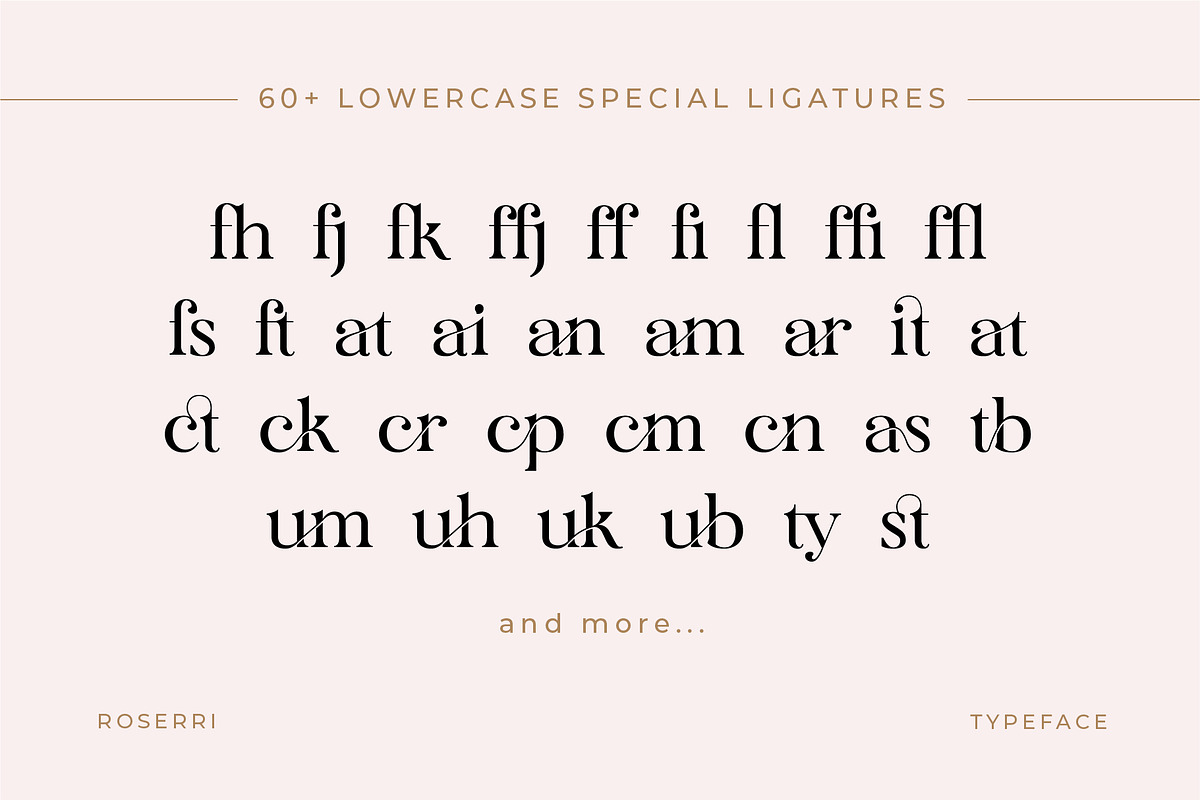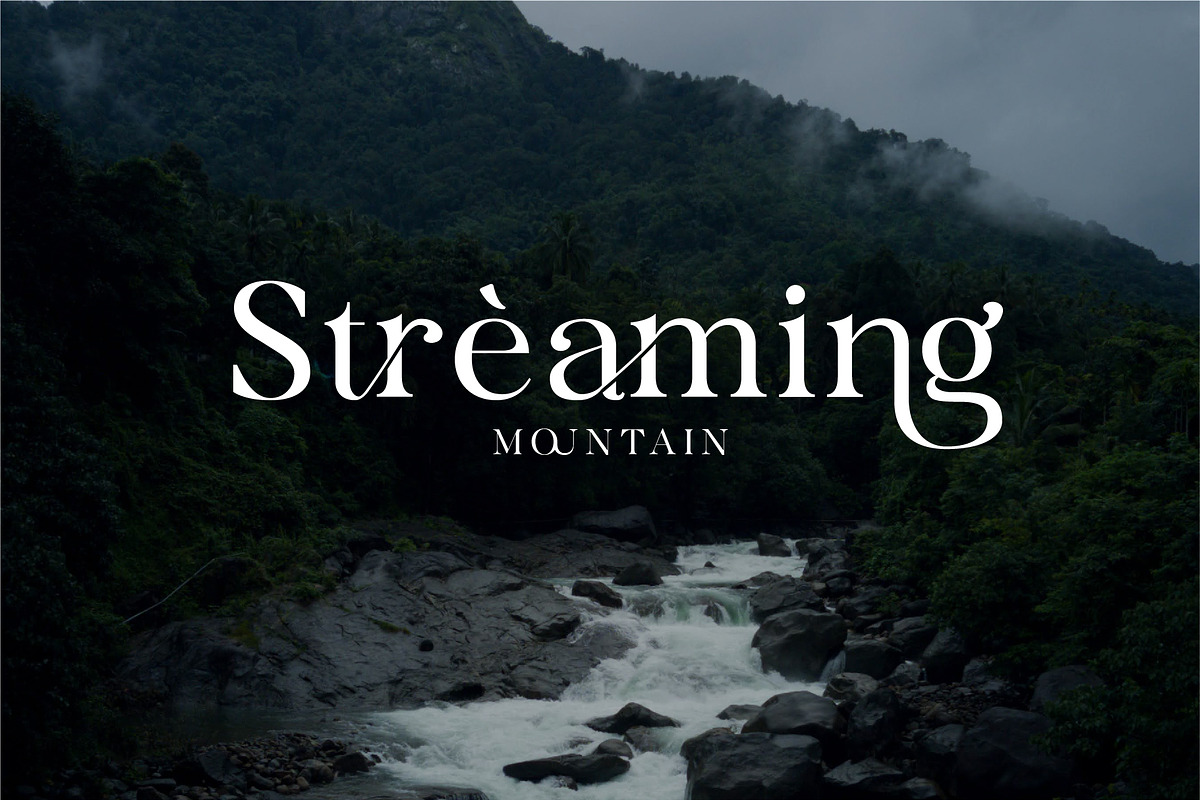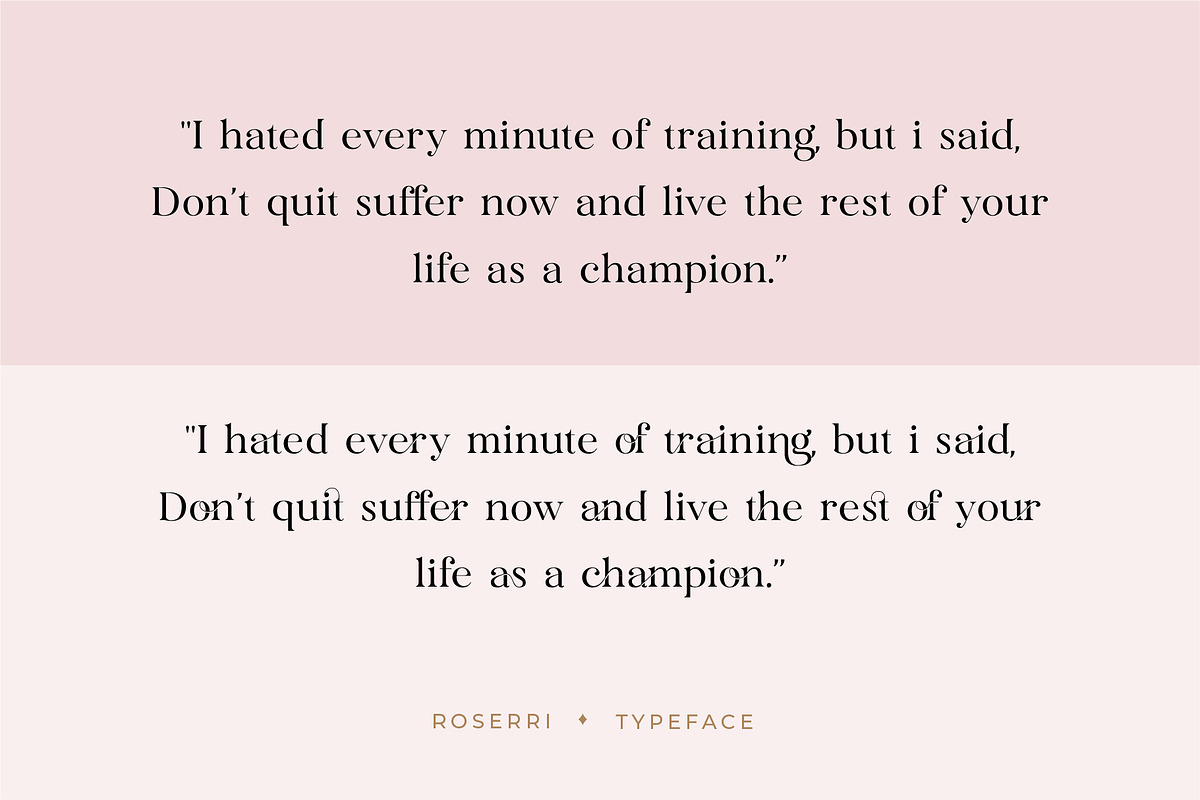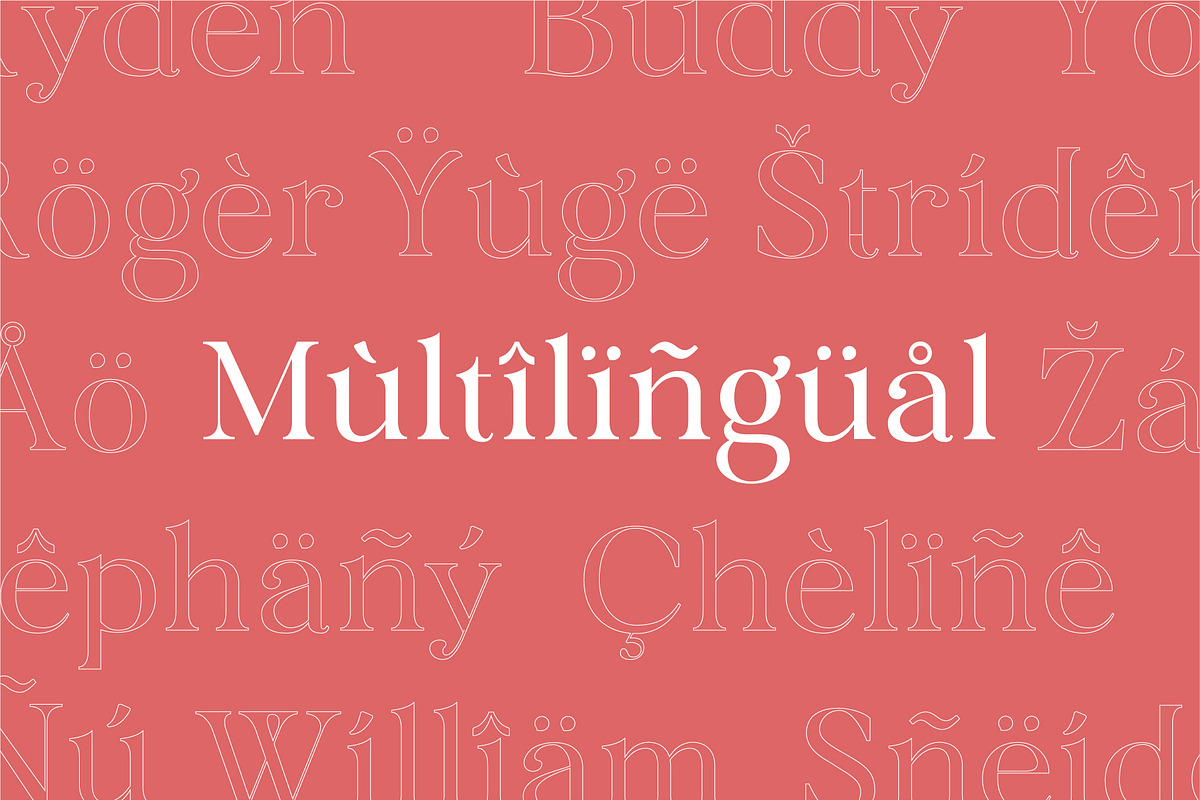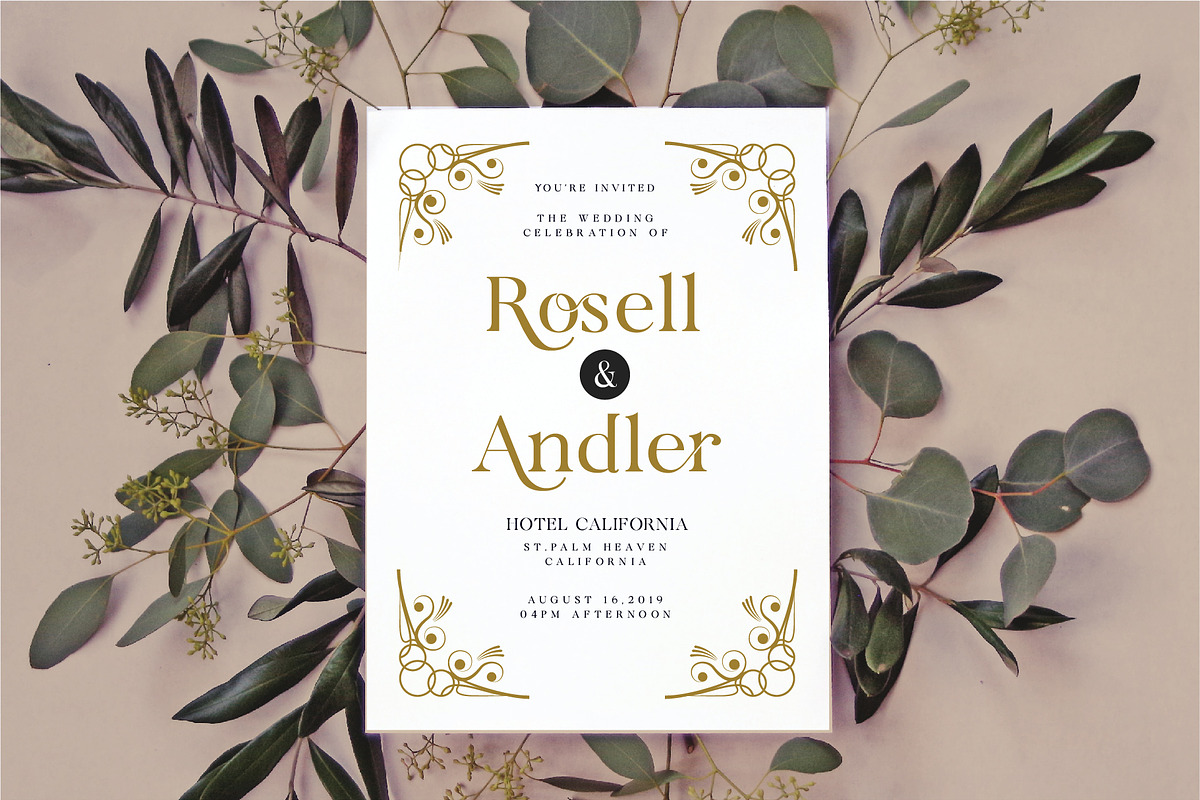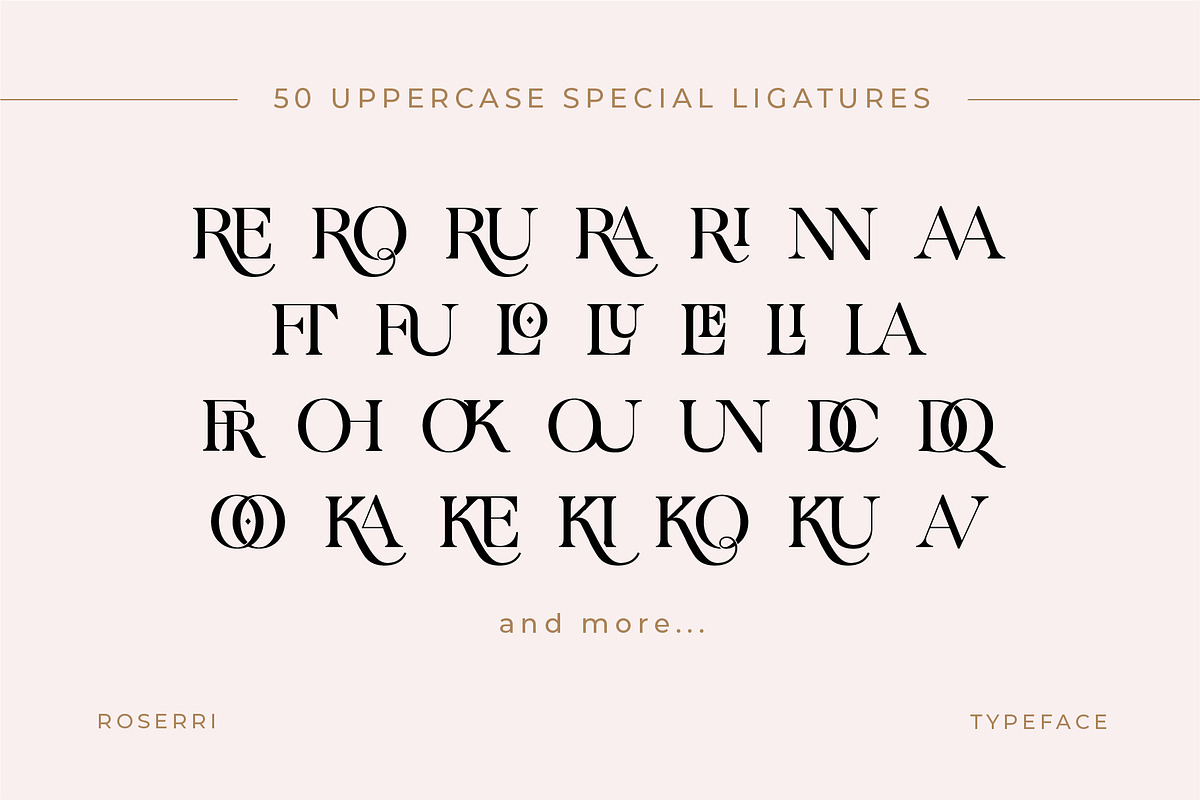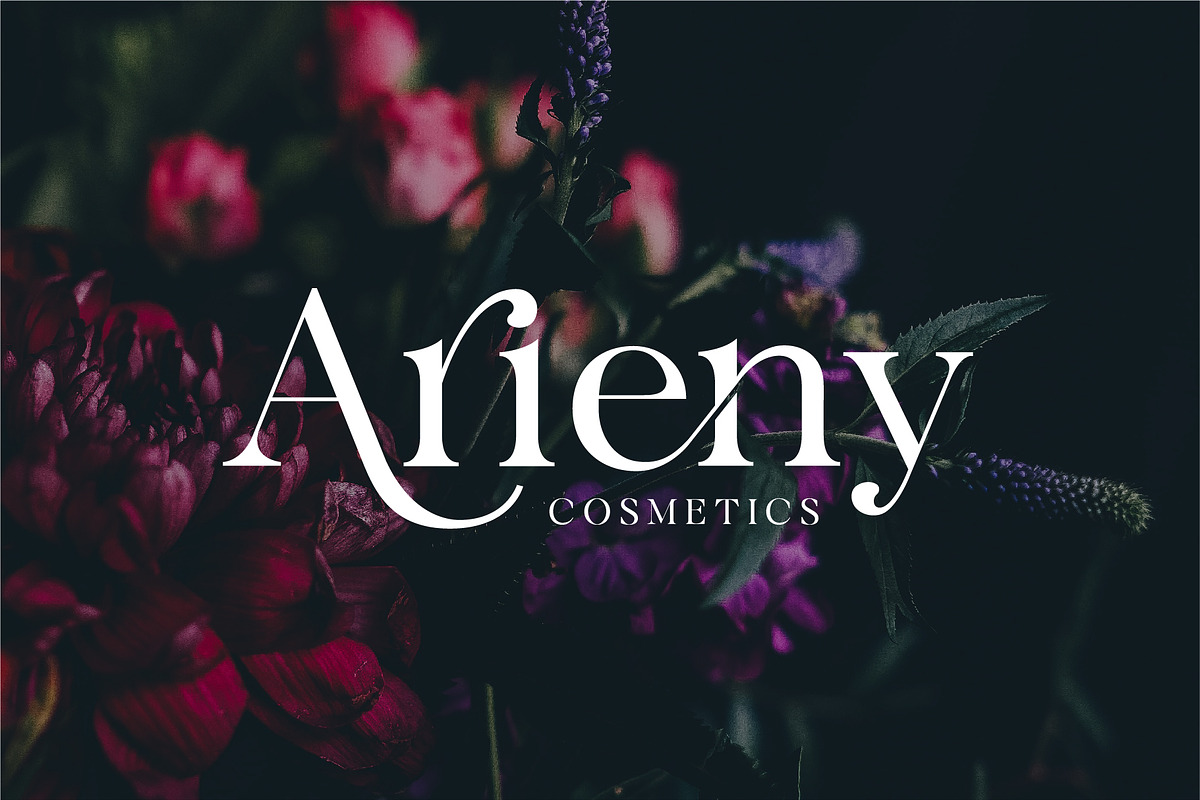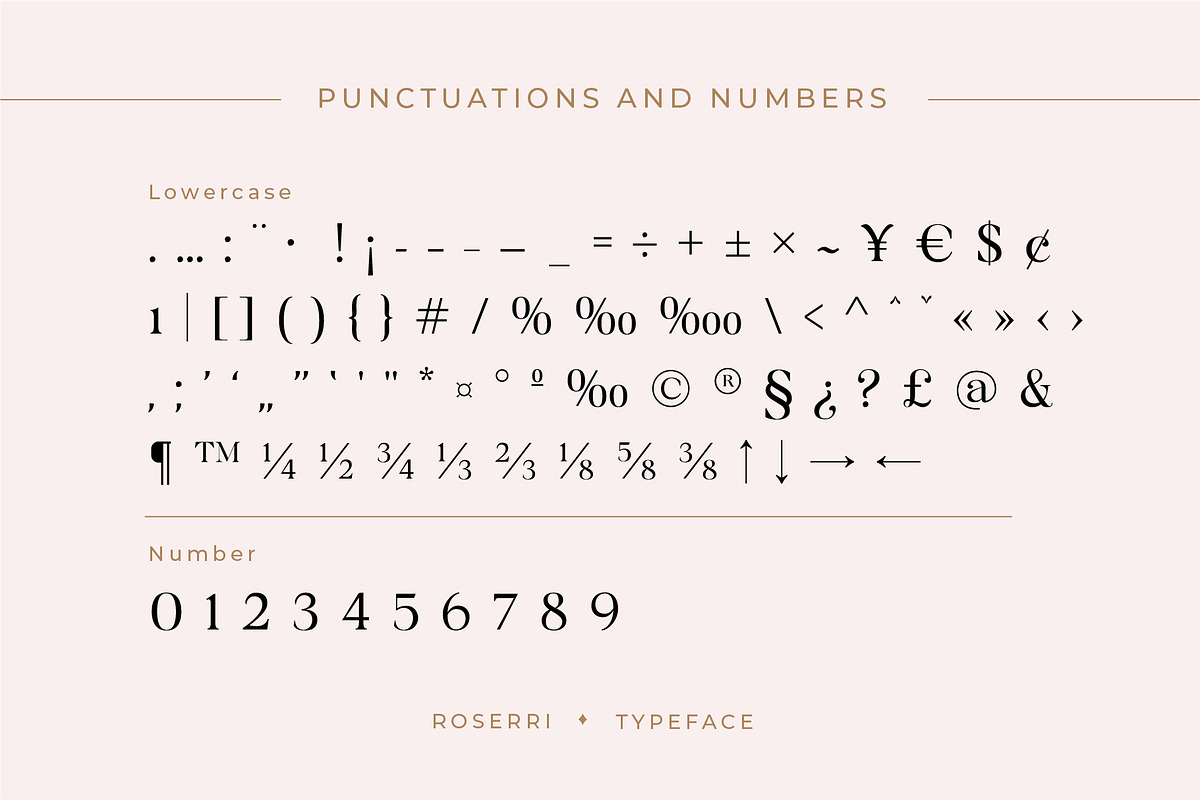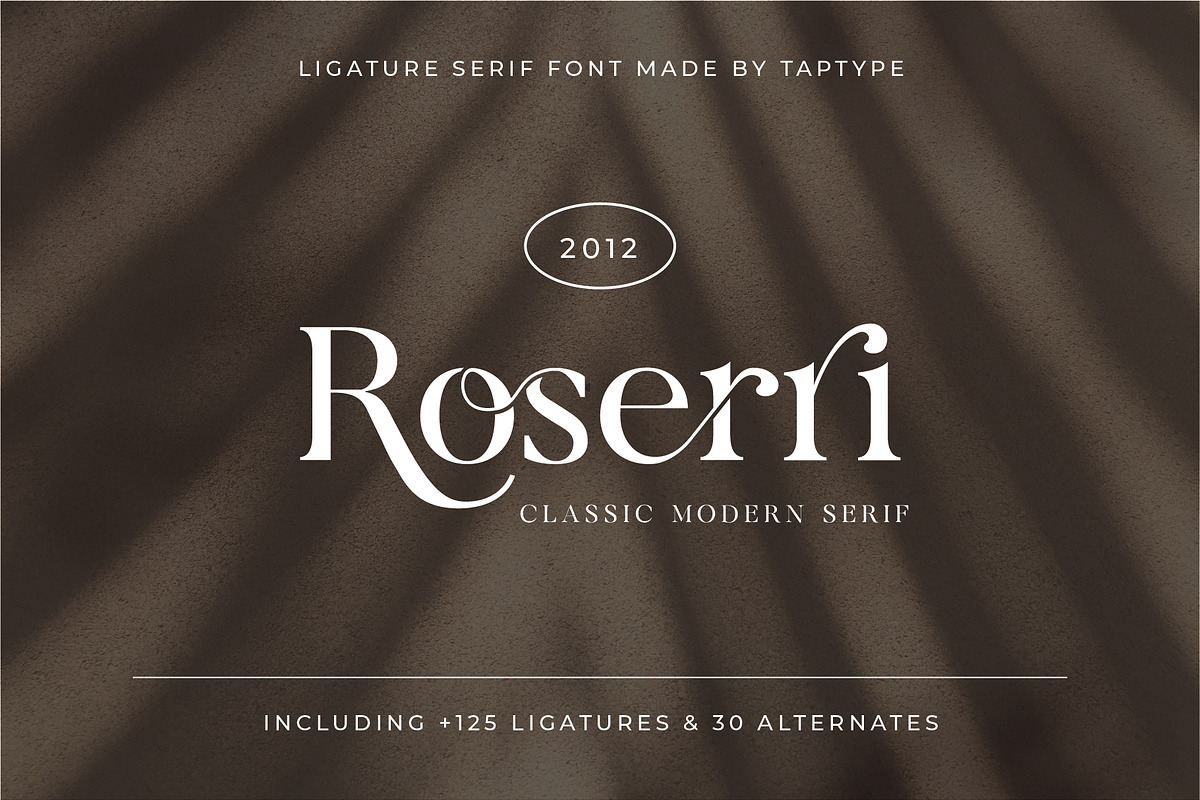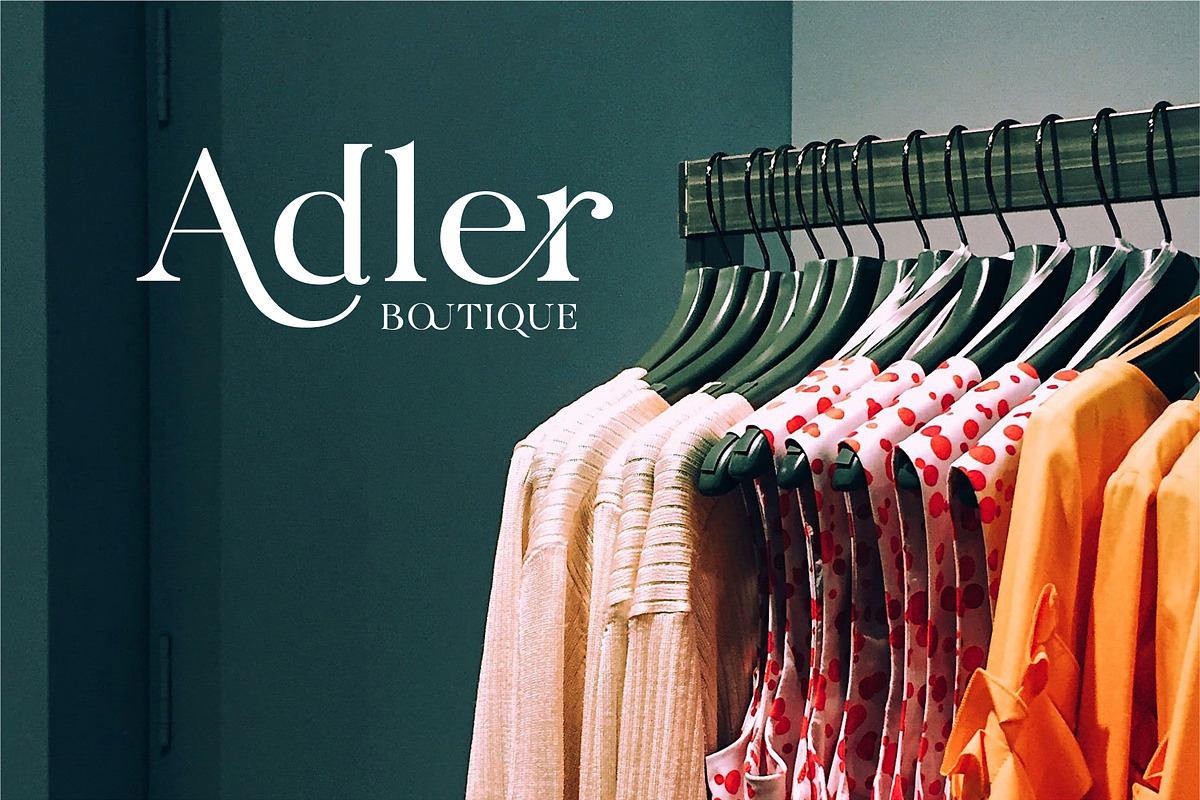
Roserri - Modern Ligature Serif
Roserri is a stylish modern font with ligature-rich Serif. Minimalist character that allowing you to easily edit the designs. It is perfect for branding, wedding invites and cards, and maybe for some project.
- 125 Special ligatures